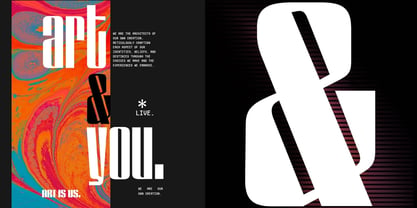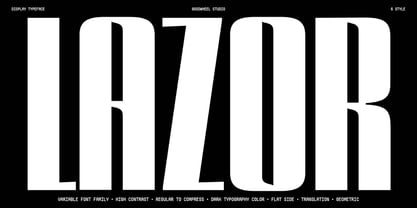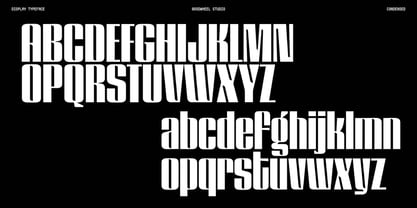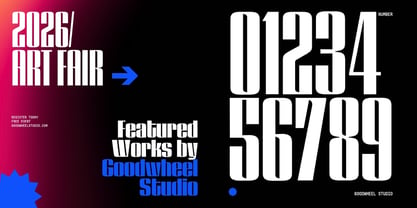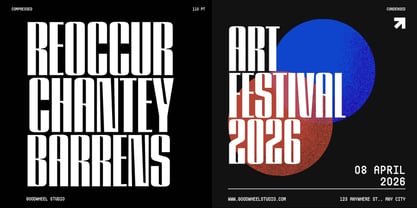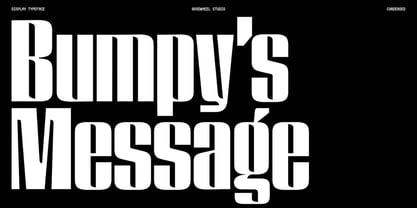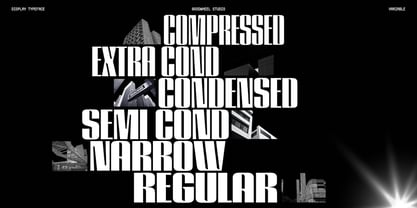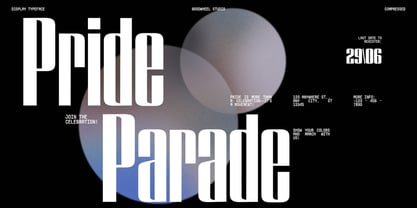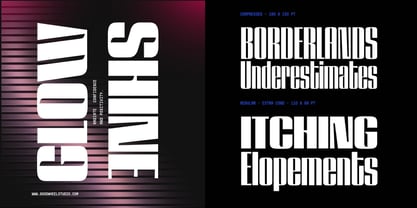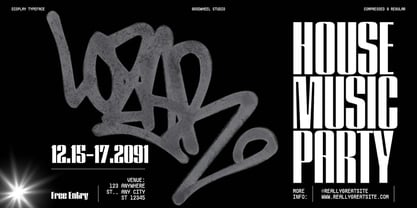
GW Lazor
by Goodwheel Studio
The GW Lazor Font Family was designed by Ilham Herry and published by Goodwheel Studio. GW Lazor contains 7 styles and family package options. More about this family
The LAZOR font presents a strong and eye-catching character, featuring bold letterforms with high contrast between thick and thin strokes. Width style LAZOR offers flexibility in use, ranging from a more regular style to a more compressed version, making it adaptable to various design needs. Its darker typographic tone reinforces a bold and solid impression. In terms of form, LAZOR adopts a geometric approach with flat sides, resulting in a clean, modern look while still maintaining a distinct personality. Subtle details in its shapes also create a sense of movement without feeling excessive. This font is well-suited for headlines, posters, and branding projects that aim to appear strong and professional